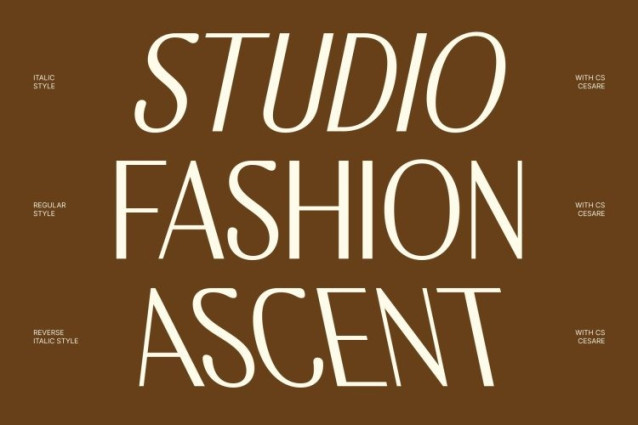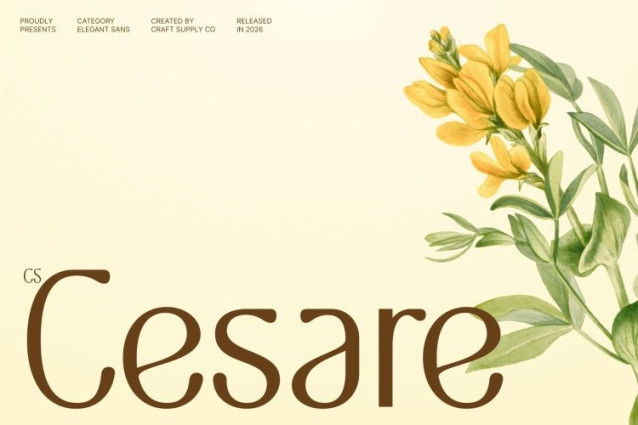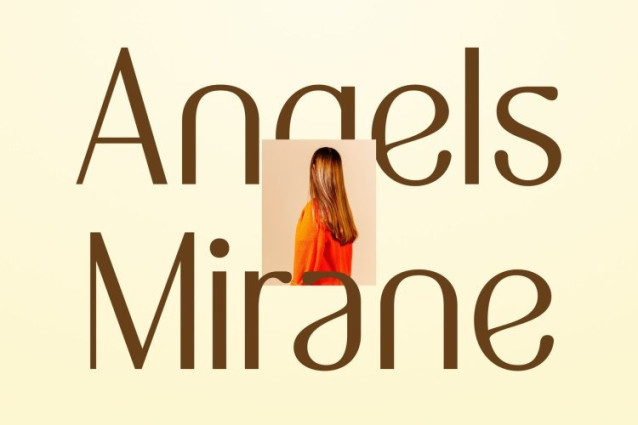
CS Cesare Font
CS Cesare Font This is a clean, modern sans serif font crafted with a minimalist philosophy and a luxurious sense of refinement. Its precise construction, smooth curves, and balanced proportions create an elegant visual tone that feels sophisticated, timeless, and confident. Designed for clarity and style, delivers a premium aesthetic that elevates modern design without unnecessary ornamentation.
Minimalist Design with Elegant Sophistication
The minimalist approach of this font allows its refined details to shine through subtlety. Consistent stroke weight, generous spacing, and clean letterforms contribute to a calm and polished appearance. This understated elegance makes the font highly versatile, enabling it to communicate luxury and professionalism in a quiet, confident way that feels contemporary and tasteful.
Refined Structure for Professional and Fashion-Forward Use
This font is designed to perform beautifully across both digital and print media. Its clean structure ensures excellent readability, while its refined style makes it especially suitable for high-end communication. The font conveys trust, exclusivity, and modernity, making it an excellent choice for fashion branding, corporate identities, and premium visual systems.
Perfect for Luxury Brands, Logos, and Web Design
Designed for upscale and minimalist applications, this font is ideal for luxury branding, modern company logos, fashion identities, and clean professional websites. Its elegant sans serif form enhances brand presence with clarity and sophistication.